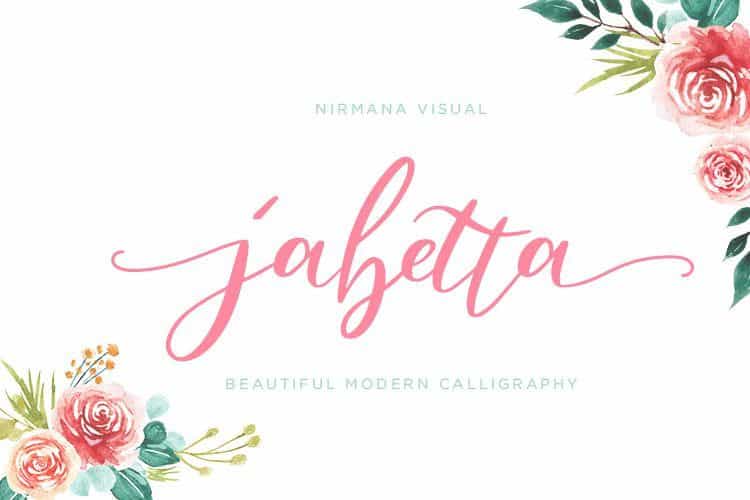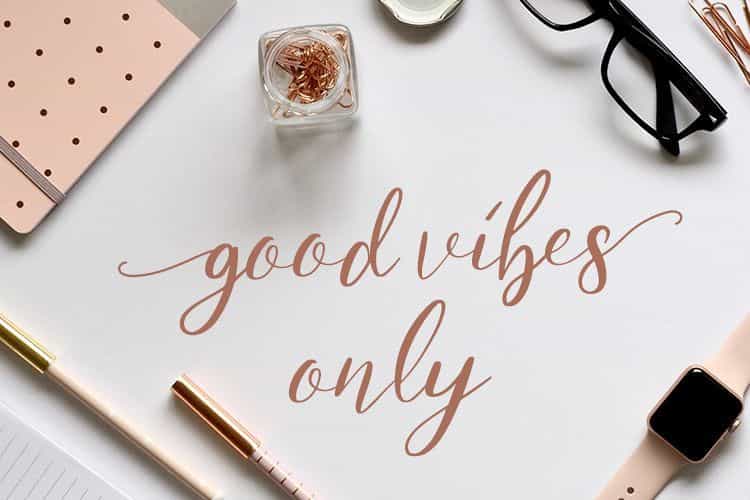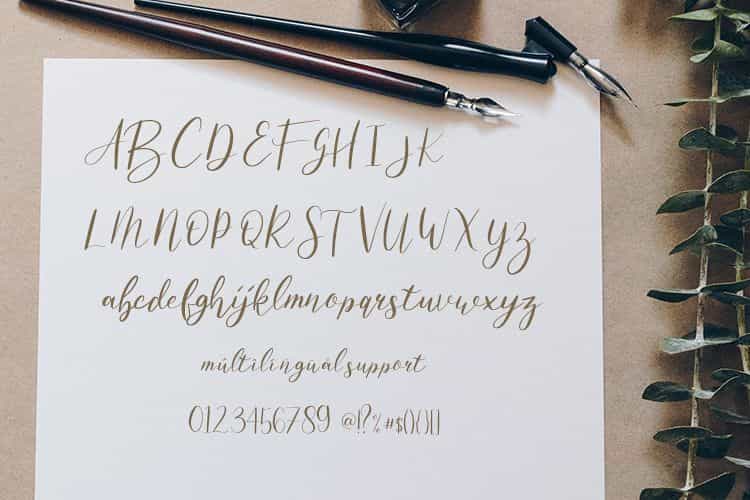
Introducing Jabetta Font to the team it’s an organic, casual, smooth,e torrential dancing script carefully made out from real handwriting. A great choice to make your special moment or project perfect!, pairing beautifully with another type of font style, it will make your work perfect.